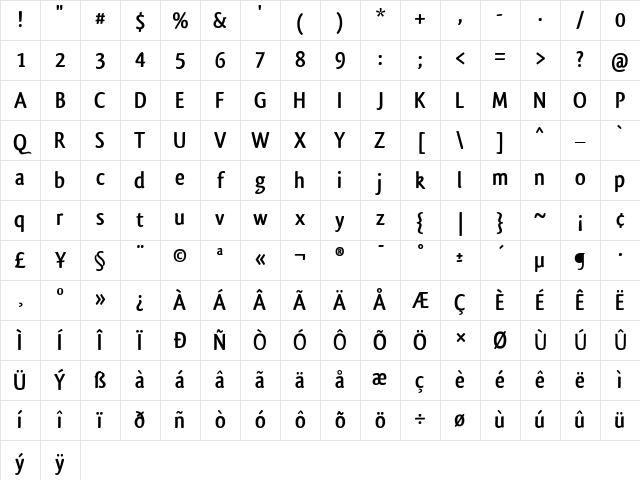
Qlassik Bold Regular Free Font
Qlassik Bold Regular
Foundry: Dimitri Castrique
Designer: Dimitri Castrique
Complete Qlassik Bold Regular glyph index. Displaying only characters natively supported by Qlassik Bold Regular font.
Design Context for Qlassik Bold
Qlassik Bold is a composed and adaptable typeface that performs quietly and consistently across a wide range of design contexts. Its bold stroke weight gives it real presence on the page.
Who designed the Qlassik Bold Regular font?
This font was published by Dimitri Castrique. Check the technical specs section for copyright and designer details.